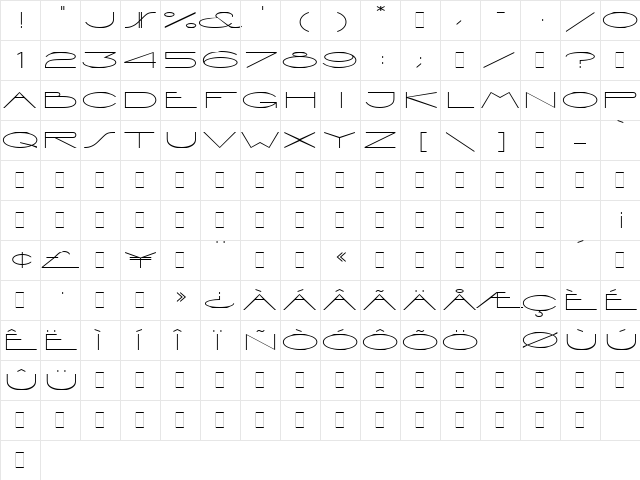
Vienna Extended LET Plain
Design Context for Vienna Extended LET Typeface
Vienna Extended LET offers clean, dependable letterforms without strong stylistic allegiance, making it a practical choice for designers who need flexibility.